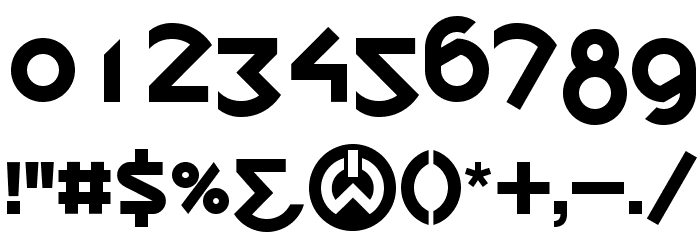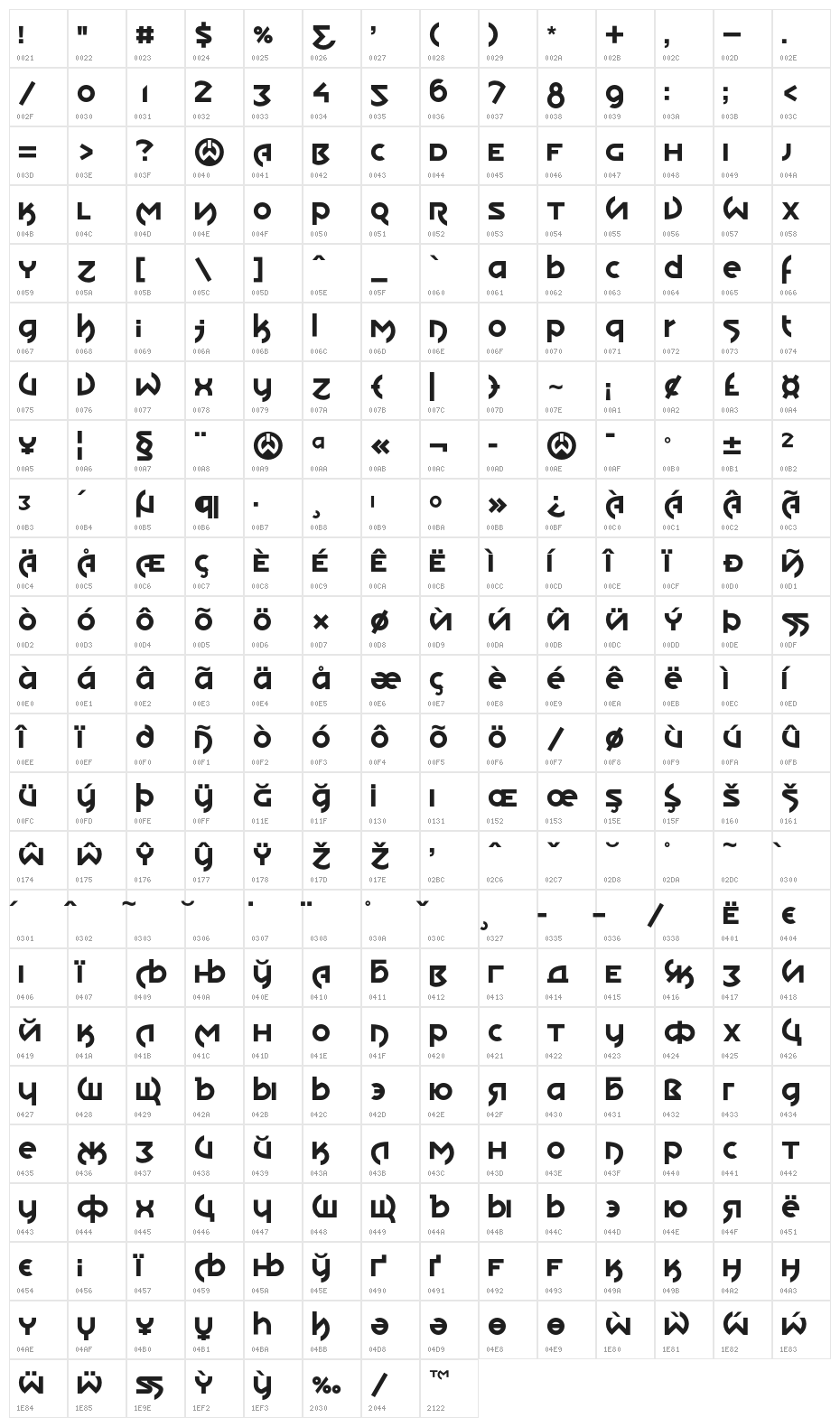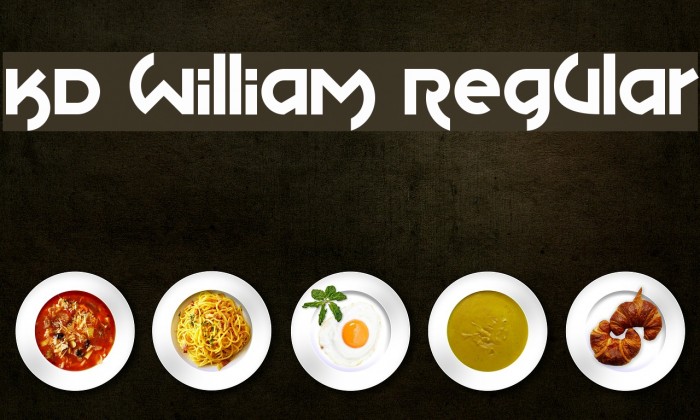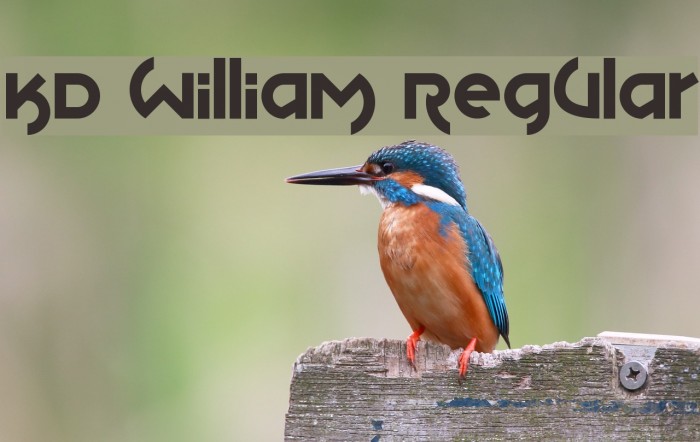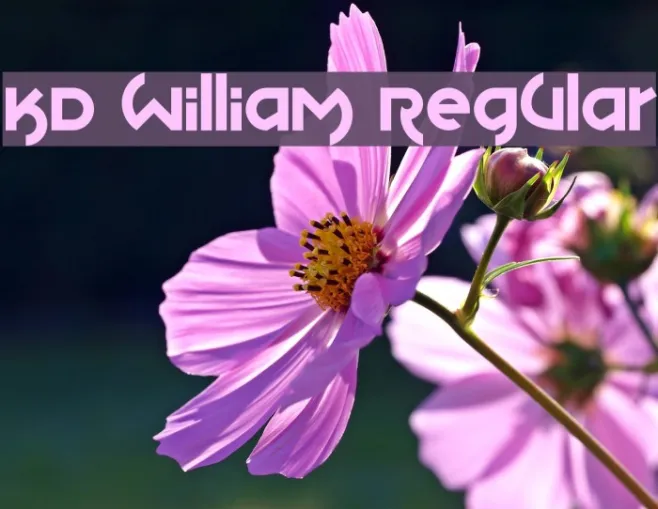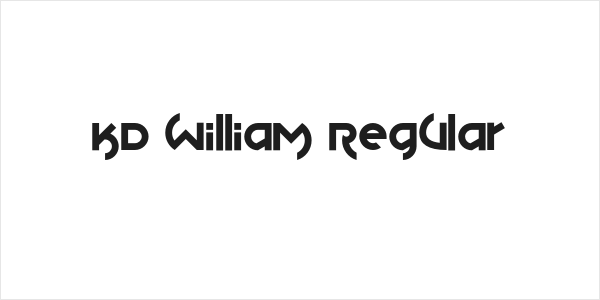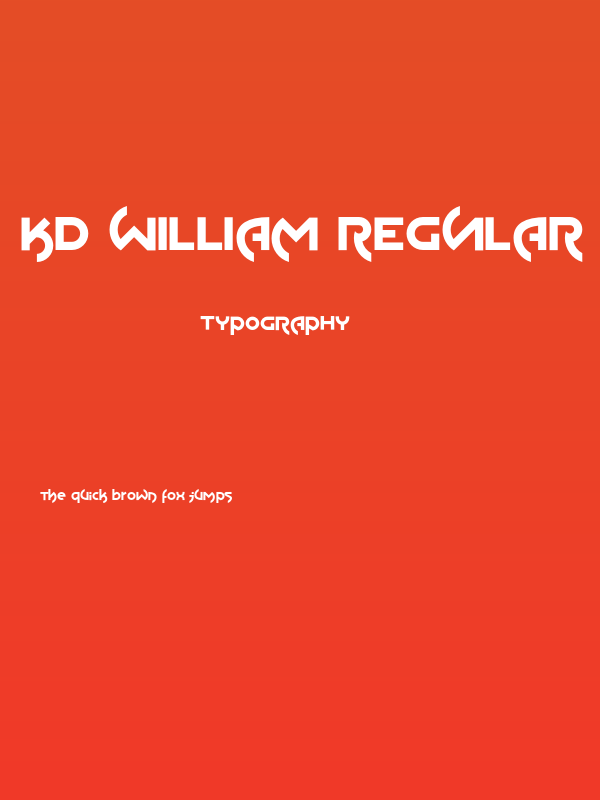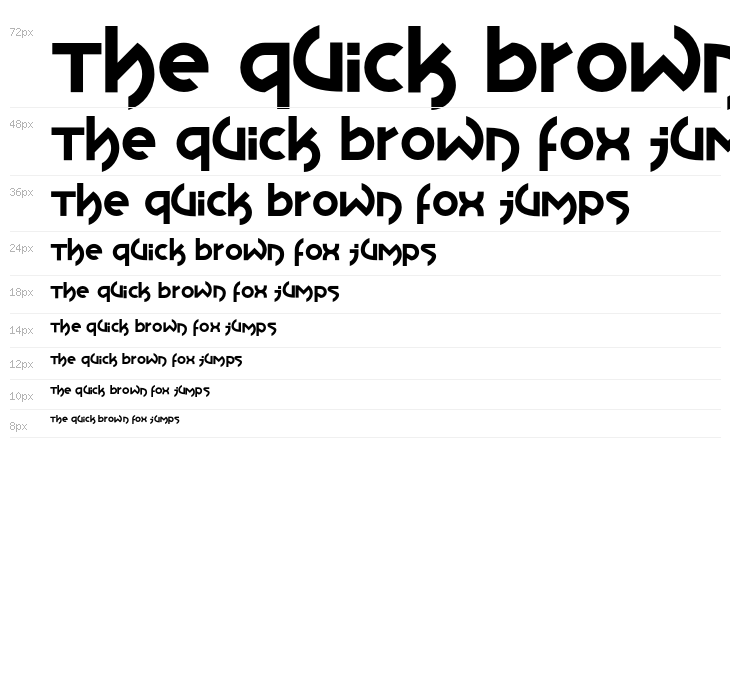
KD William Regular Font
KD William Regular Description
This font features a bold and geometric design with a futuristic flair. The characters are crafted with sharp angles and clean lines, creating a sense of modernity and innovation. The uppercase and lowercase letters maintain a consistent style, with unique elements such as curved strokes and angular cuts that add a distinctive touch. The numerals and special characters follow the same design principles, ensuring a cohesive look across all glyphs. This font is ideal for projects that require a bold statement and a contemporary aesthetic.
Proposed ProjectsIdeal for branding, logos, posters, and any project that requires a modern and bold aesthetic.